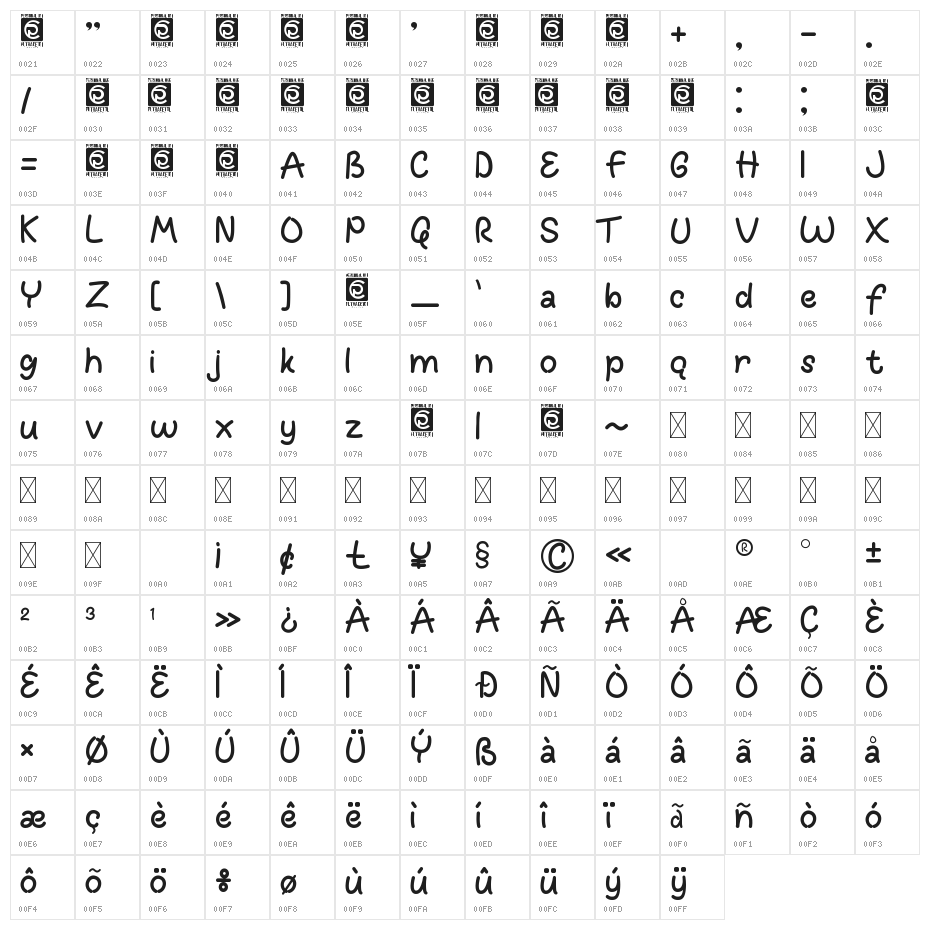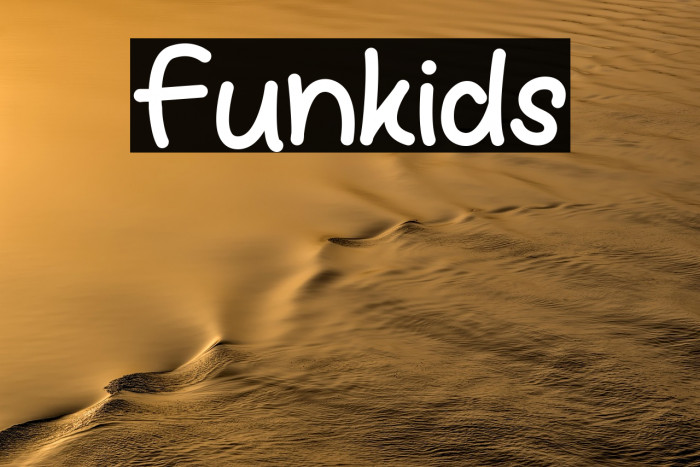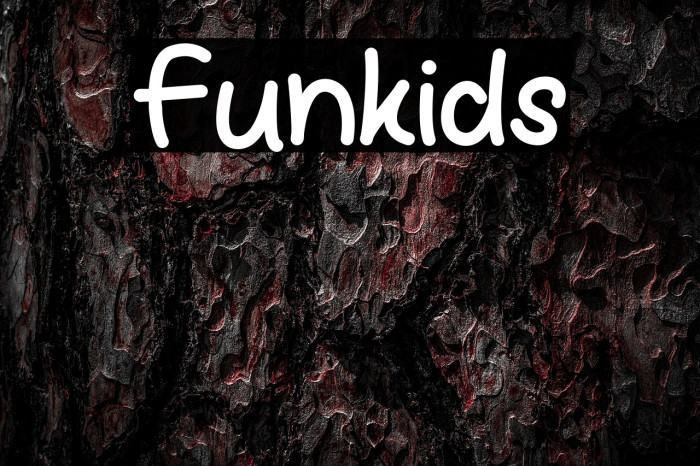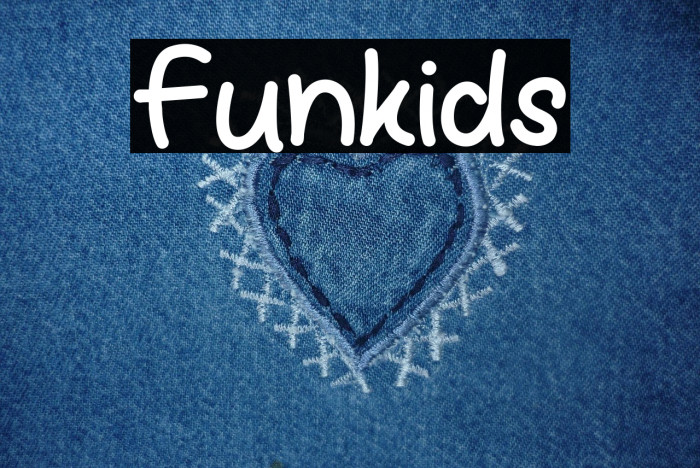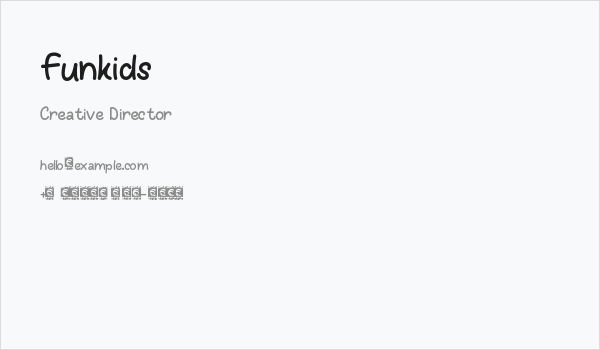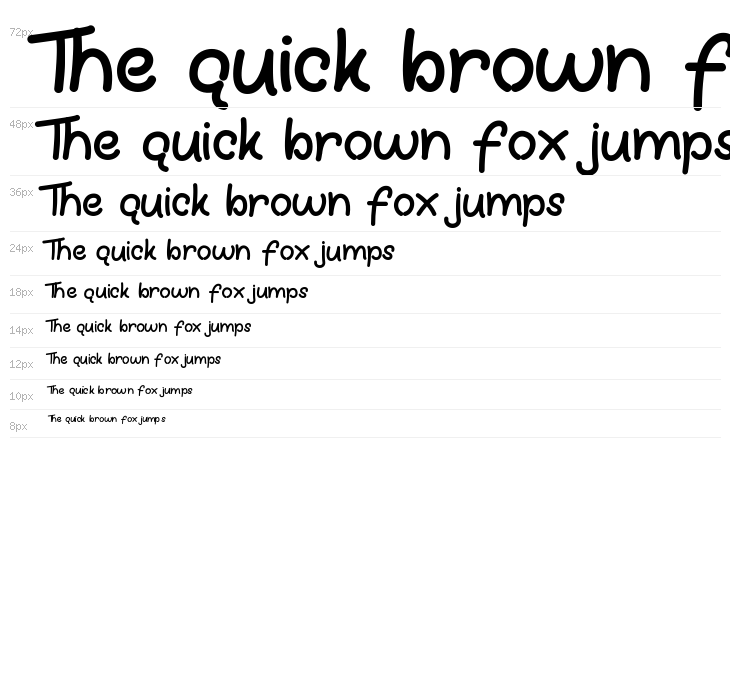
Funkids Font
Funkids Description
This playful and whimsical font features a handwritten style with rounded edges and a casual, friendly appearance. The characters are slightly irregular, adding to the charm and informal feel. The uppercase and lowercase letters maintain a consistent style, with a slight slant that gives a dynamic and lively look. The numbers and special characters are designed to match the playful nature of the alphabet, making it suitable for creative and fun projects. The font's overall appearance is approachable and light-hearted, perfect for engaging a younger audience or adding a touch of fun to any design.
| Overall Style | Playful |
| Proposed Projects | Ideal for children's books, educational materials, playful branding, and creative posters. |